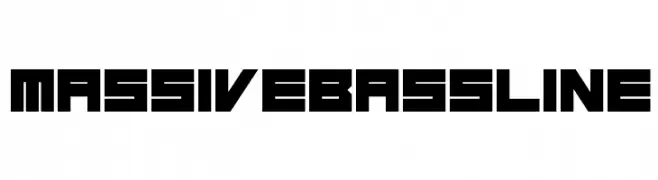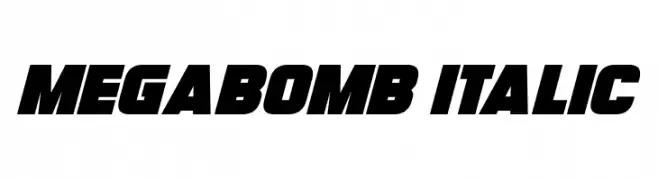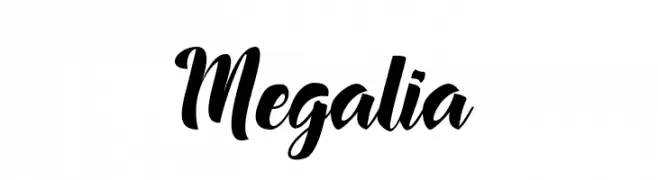
( Darrell Flood )
A bold, geometric font with a futuristic and industrial style.
( Dale Sattler - noponies.com )
A bold, geometric font with clean lines and a modern aesthetic.
( Dale Sattler - noponies.com )
A modern, geometric font with rounded edges and consistent stroke width.
( Davide Mottes )
A modern sans-serif font with medium weight and rounded edges, offering clarity and versatility.
( Cotbada Studio - Isfani - creativemarket.com/Cotbada_studio )
A modern, elegant script font with a flowing, handwritten style.
( Cropstudio - Crop Studio - creativemarket.com/Cropstudio )
An elegant and flowing script font with interconnected letters and a classic style.
( FadeLine Std. - creativemarket.com/fadeline )
An elegant script font with flowing, interconnected letters and calligraphic style.
( Darrell Flood )
A bold, impactful font with strong, thick strokes and geometric shapes.
( Darrell Flood )
A bold, italic font with a dynamic and energetic style.
( Flamde Studio - Nur Solikh - creativemarket.com/flamde/ )
A bold and expressive script font with flowing, connected letterforms and high contrast.